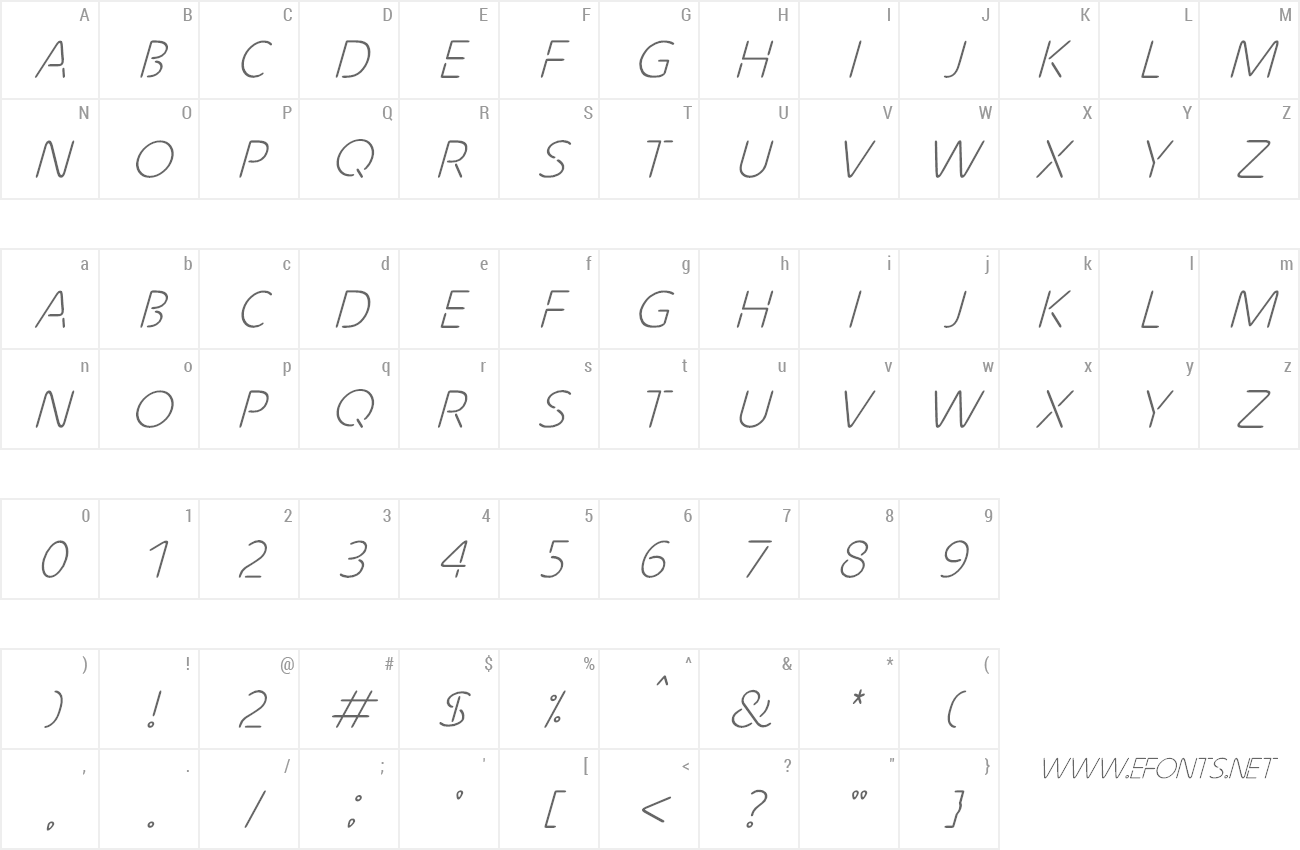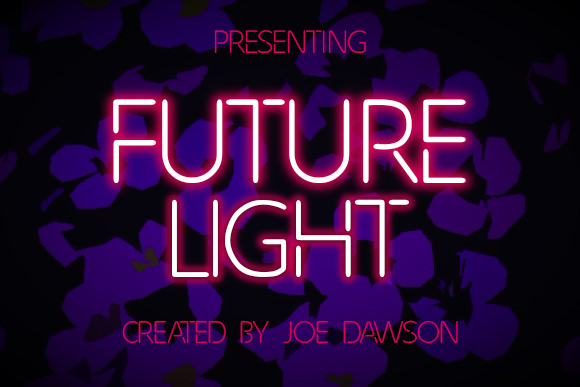
Preview and download Future Light Font. Created by Joseph Dawson in Techno Sci-fi styles with Donationware license.
Future Light is a cyber punk styled display font. Its dynamic future-neon styled aesthetic will add a cool touch to all your designs and sci-fi themes. This font is for personal use ONLY ... although donations are appreciated! Kindly give as much as you honestly feel the font is worth to you. Paypal account for donation: dawsonjoseph333@gmail.com For commercial use you must pay $10 USD. Link to purchase a commercial license : https://www.creativefabrica.com/product/future-light-2/ref/236312/ Please visit our store for more great fonts: https://www.creativefabrica.com/ref/236312/ |